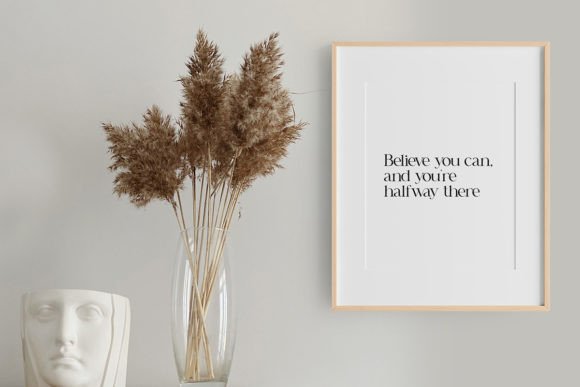
Cary Font
Cary Is A Classy Serif Font with Stylistic Alternates and Ligatures.
Cary is a sharp, elegant slab serif typeface. Its unique glyphs construction renders it a valid choice when it comes to designing a serious project which requires a delicate touch, clean look, and elegant note. Use it in your Packaging design, perfume design, or fashion design presentation, and you will notice how much powerful it ports inside every glyph.